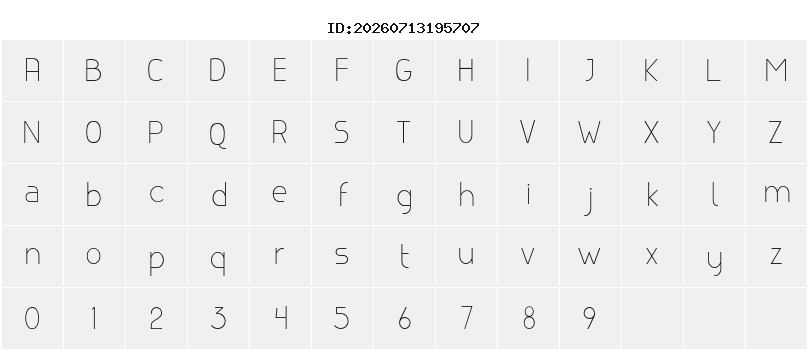
canela Preview
• Font Name: canela
• Font Style: Light
• Full Font Name: canela-Light
• PostScript Name: canela-Light
• Designer: Bianca Oliveira e Denise Matsumoto
• Manufacturer: Bianca Oliveira e Denise Matsumoto
About canela.otf
canela.otf is a modern, elegant sans-serif font designed for ultimate readability and visual harmony. Perfect for branding, headlines, web design, and print materials.